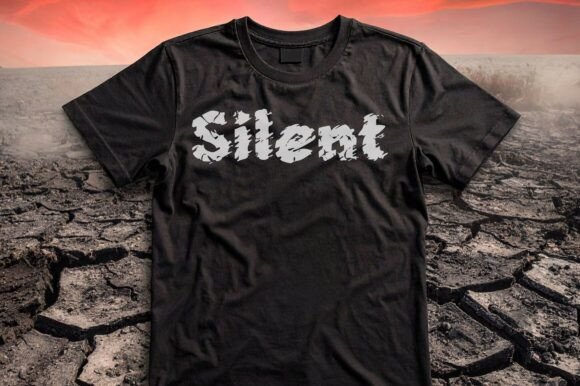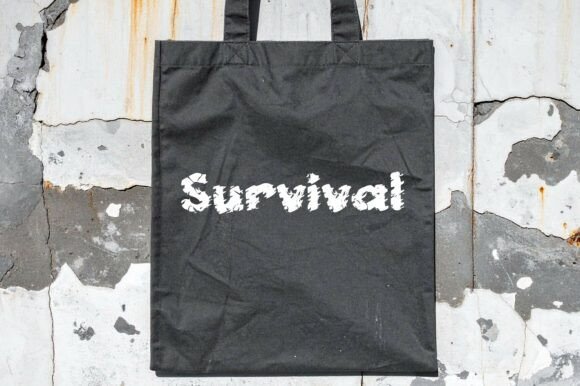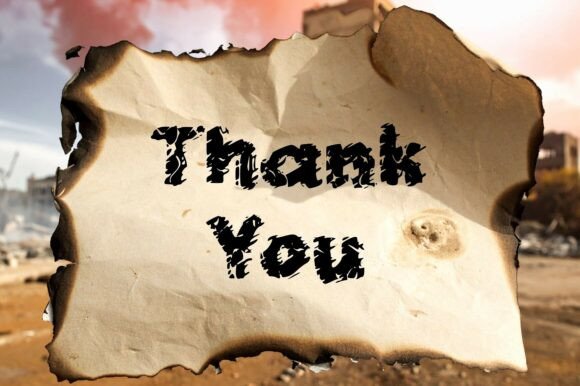
Unleashing the Power of Cemoreng Font: A Designer’s Dream Come True
I still remember the thrill of working on a project that required a font with a bold, daring personality. As a designer, I’ve had my fair share of struggles when it comes to finding the perfect font. But then, I stumbled upon Cemoreng Font, and it was love at first sight! 💡
Radiating sheer strength, Cemoreng is an arresting decorative display font that captivates at first sight. Born from the unbending tenacity of survival, the courage of confronting challenges, and the rugged allure of untamed landscapes, Cemoreng embodies an unyielding strength and daring rebellion.
A Personal Review of Cemoreng Font
What I Love About Cemoreng Font ✨
- ✅ Robust and rugged design: Cemoreng’s textured, slightly weathered characters look like they’ve been carved and sculpted by determination.
- ✅ Perfect for bold projects: This font is ideal for projects that demand a robust visual impact, such as extreme sports, military themes, or rock, metal, and punk music.
- ✅ Head-turning presence: Cemoreng charges forth with a confident, attention-grabbing presence that makes it hard to ignore.
- ✅ Versatile: This font can be used for game titles, movie posters, captivating headlines, and more.
While Cemoreng Font is an amazing addition to any design project, there are a few things to keep in mind:
- 🤔 Legibility at small sizes: Due to its rugged design, Cemoreng may not be the best choice for body text or small font sizes.
- 🤔 Overuse: As with any bold font, be careful not to overuse Cemoreng, as it may become overwhelming.
The Backstory of Cemoreng Font
Cemoreng Font was inspired by the untamed landscapes and rugged beauty of the natural world. Its creator sought to capture the essence of resilience and determination in a font that would make a bold statement.
Q: What type of projects is Cemoreng Font best suited for?
A: Cemoreng Font is perfect for projects that demand a robust visual impact, such as extreme sports, military themes, or rock, metal, and punk music.
Q: Can I use Cemoreng Font for body text?
A: While Cemoreng Font is stunning as a display font, it may not be the best choice for body text due to its rugged design and potential legibility issues at small sizes.
Q: Is Cemoreng Font suitable for game titles and movie posters?
A: Absolutely! Cemoreng Font’s bold, attention-grabbing presence makes it an excellent choice for game titles and movie posters.